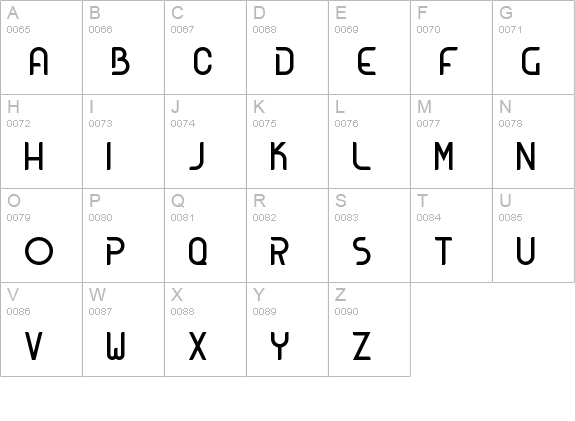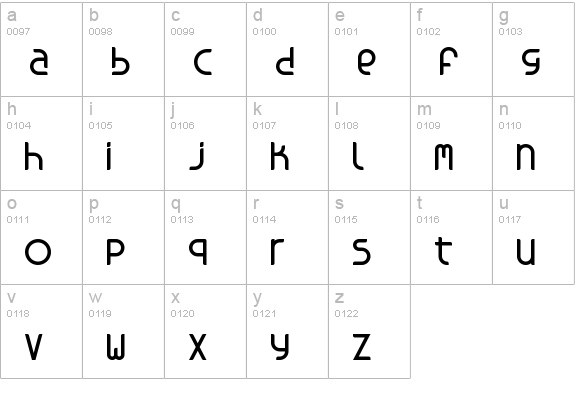
Kosova Font Details
Kosova is a free for personal use font in the Modern > Futuristic category. It has been downloaded 203 times and is available for Windows, Mac and Linux.
Introducing Kosova Font, a modern and stylish typeface that is perfect for adding a touch of elegance and sophistication to your designs. This font is not only visually appealing, but it is also free, making it accessible to everyone. Kosova Font features clean lines, smooth curves, and a balanced letterform, making it ideal for a wide range of design projects. Whether you are creating a logo, designing a website, or crafting a poster, this font will effortlessly elevate your work and give it a professional and polished look. With its wide range of weights and styles, Kosova Font offers versatility and flexibility. Whether you prefer a bold and impactful look or a more subtle and refined approach, this font has got you covered. Its extensive character set includes uppercase and lowercase letters, numbers, symbols, and punctuation marks, allowing you to express your creativity without limitations. One of the best things about Kosova Font is that it is freely available to download at FontsMarket.com. This means that you can easily access and use this font in your projects without any cost. FontsMarket.com is a trusted source for high-quality fonts, and their extensive collection ensures that you will find the perfect font for any project. So why wait? Start using Kosova Font today and experience the power of free and exceptional typography. Make your designs stand out, grab attention, and leave a lasting impression with this beautiful and versatile font. Download Kosova Font from FontsMarket.com and let your creativity soar.